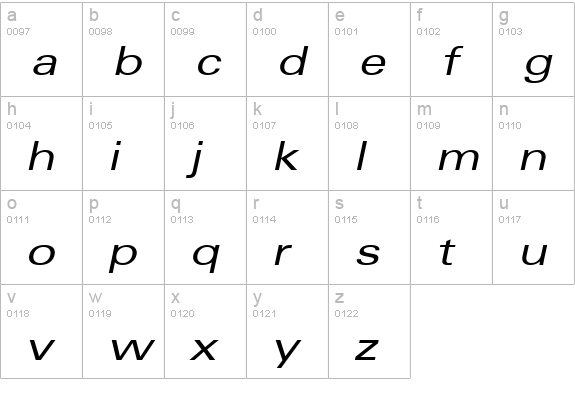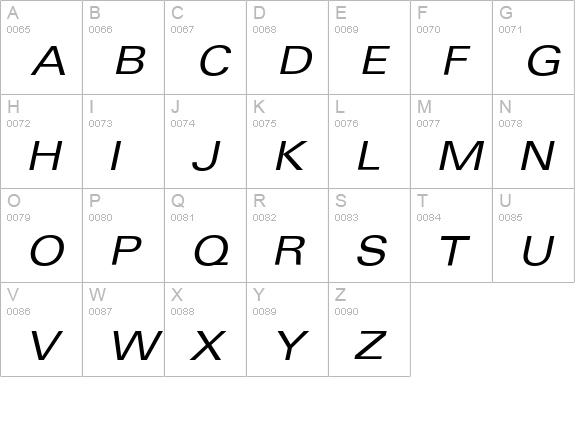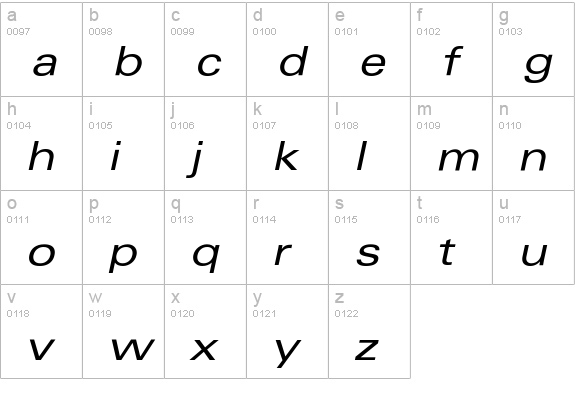
Nova Expanded SSi Expanded Italic Font Details
Nova Expanded SSi Expanded Italic is a distinctive, extended-width, italic variant in the Nova typeface family \xE2\x80\x94 well suited to design and typography projects.
Nova Expanded SSi Expanded Italic is a modern and sleek typeface with a stylish twist. Its italic design conveys a sense of movement and sophistication, making it perfect for adding a touch of elegance to any project. The elongated letters create a sense of space and flow, making this font ideal for titles, headlines, and branding materials. What makes Nova Expanded SSi Expanded Italic even more appealing is that it is available for free download at FontsMarket.com. This means that you can easily access this stunning font without any cost, making it a valuable addition to your design toolkit. Whether you are working on a website, poster, or logo, Nova Expanded SSi Expanded Italic will elevate your design with its unique style and flair. Download it today and enhance your projects with this eye-catching typeface.